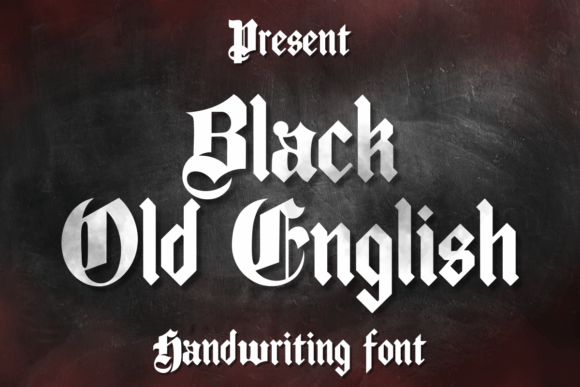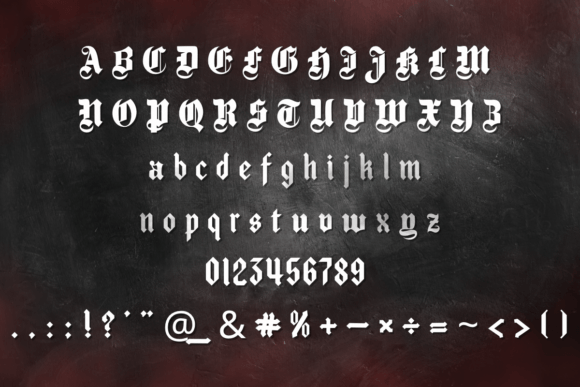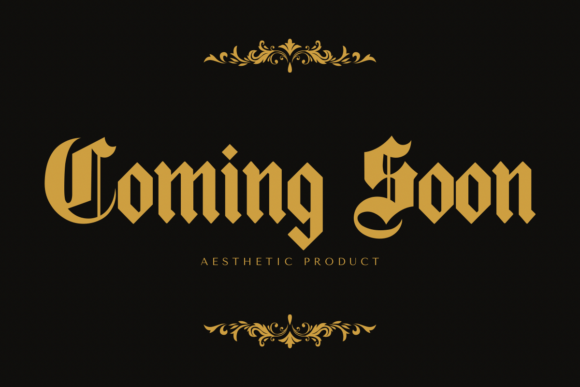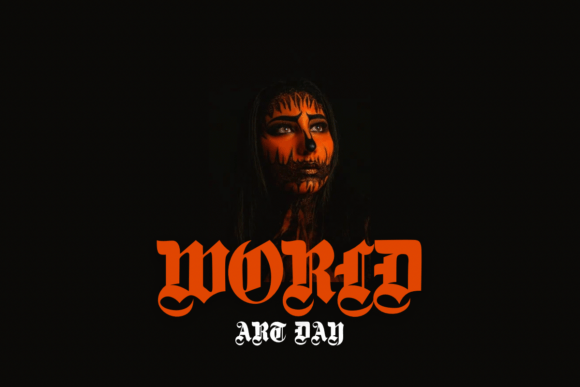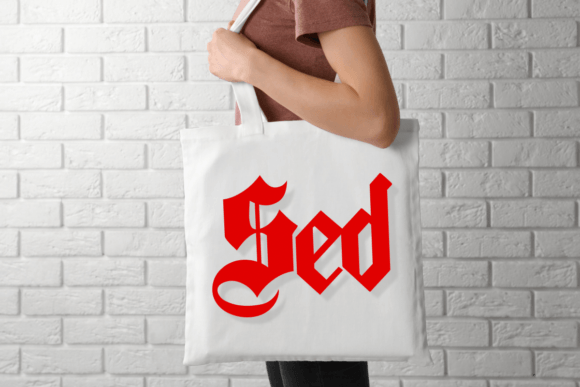
Black Old English Font
Black Old English is a bold and thick lettered blackletter font. Add it confidently to your projects, and you will love the results.